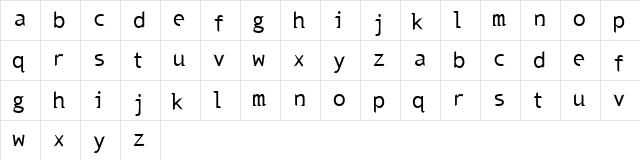
vlime Regular Font Preview
vlime Regular
vlime Regular Font Details
Design Context for vlime Typeface
vlime takes a measured approach to typography — its balanced proportions and neutral character make it a reliable workhorse for both digital and print work.